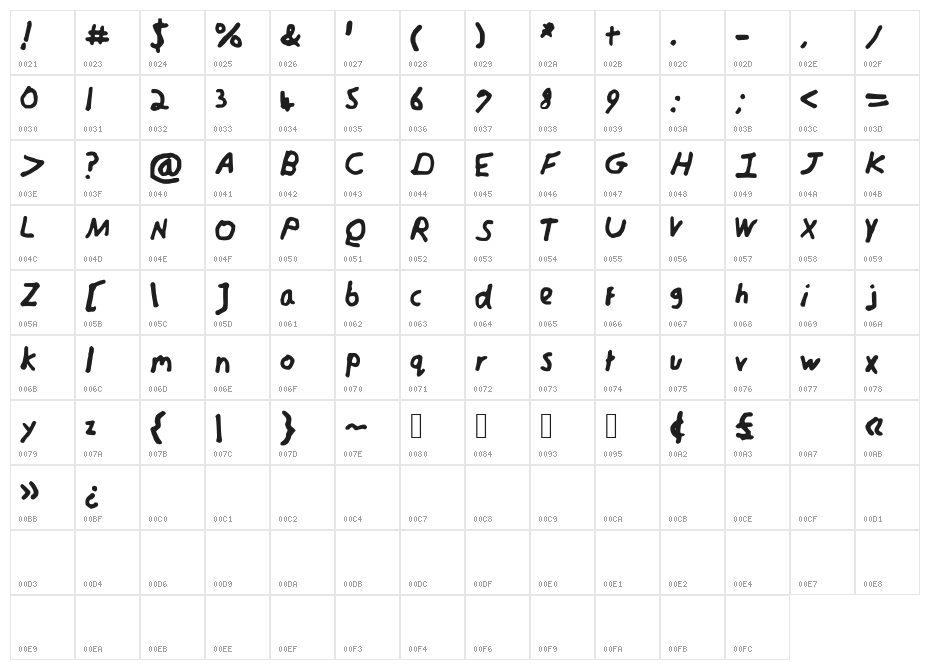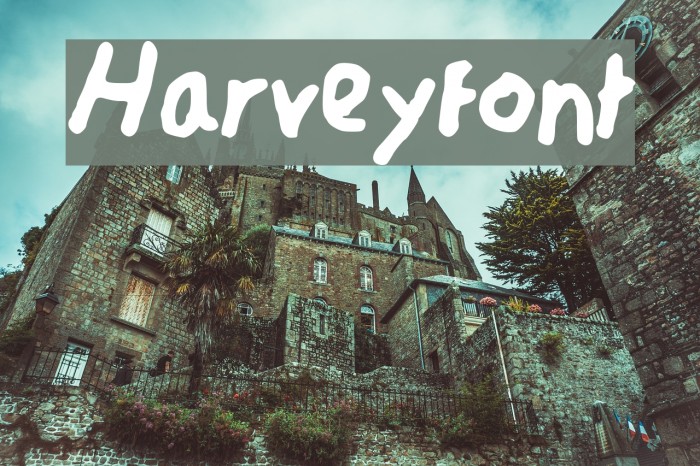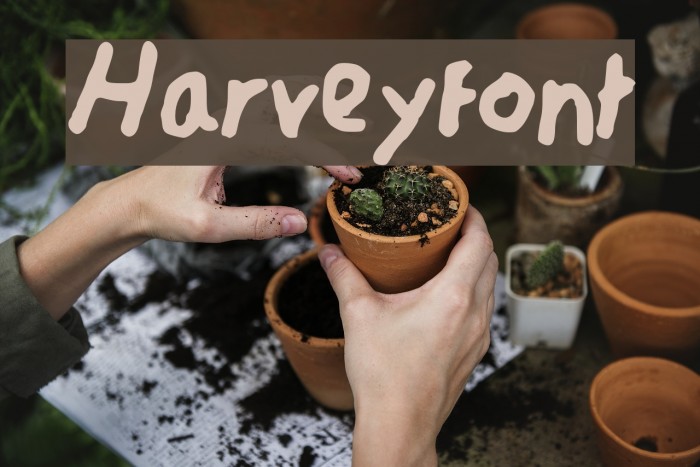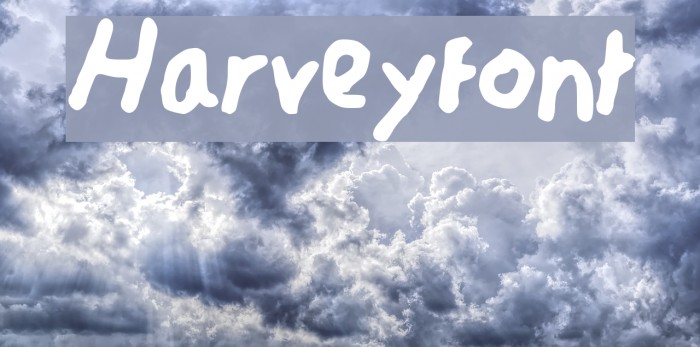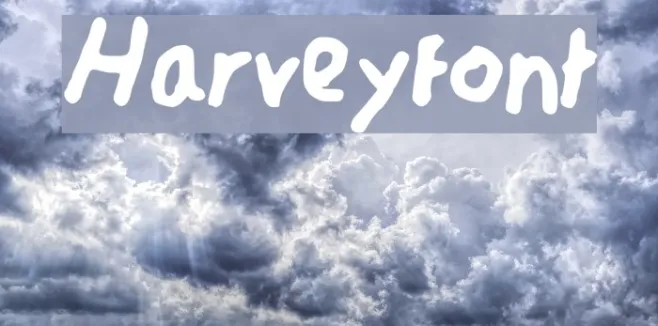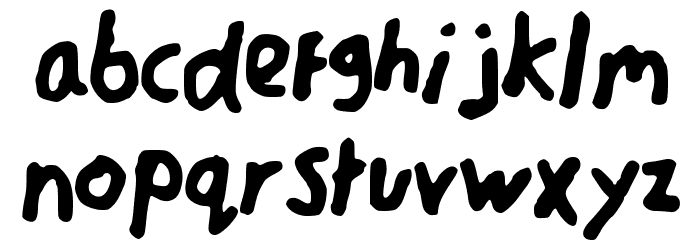
Harveyfont Font
Harveyfont Description
This font features a playful and casual handwritten style, characterized by its bold and slightly irregular strokes. The letters have a dynamic and energetic appearance, with varying thickness that adds a sense of movement and personality. The uppercase and lowercase letters maintain a consistent style, while the numbers and special characters complement the overall aesthetic. The font's informal and friendly look makes it suitable for projects that require a personal touch or a creative flair.
| Proposed Projects | Ideal for greeting cards, children's books, playful branding, and casual invitations. |